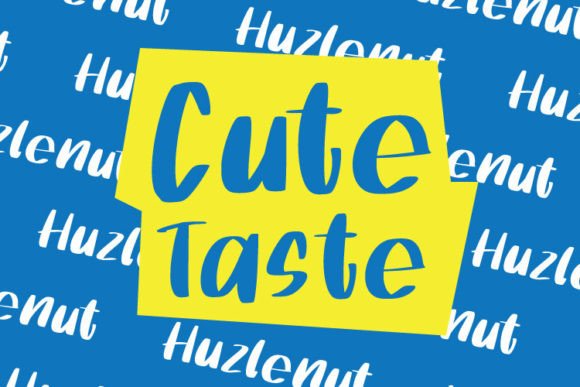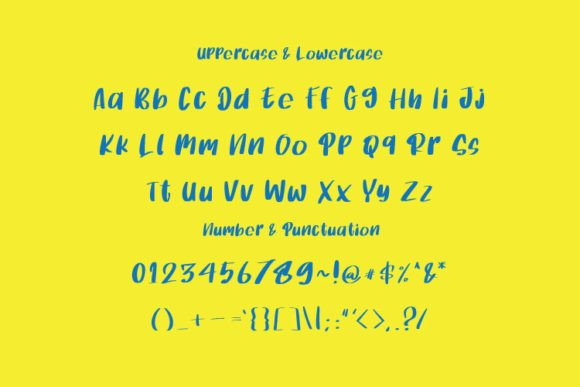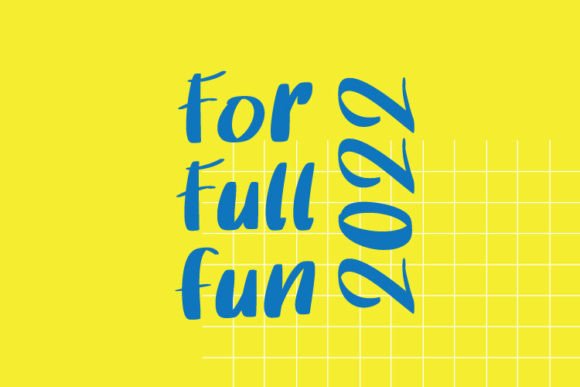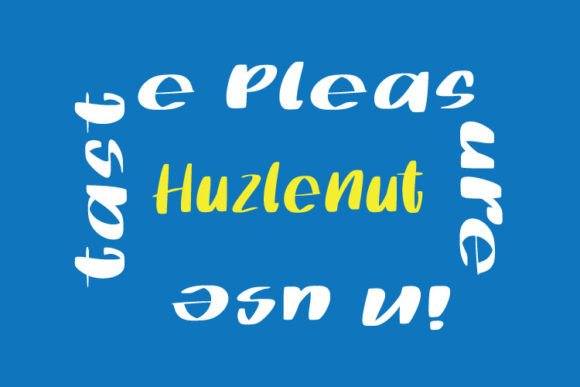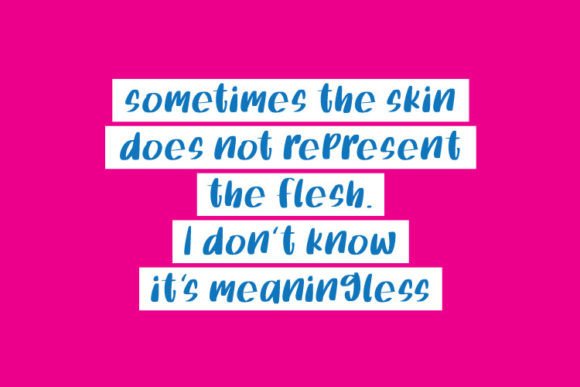
Introduction to Huzlenut Font
Do you remember the thrill of creating something with your own two hands? For designers, that moment often comes when we stumble upon the perfect font to bring our ideas to life. And, if you’re anything like me, you’ve spent countless hours searching for that elusive combination of style and functionality. Well, your search might just be over with the Huzlenut Font.
With its clean, cute, and adaptable design, the Huzlenut Font is the ultimate game-changer for any creative project. Whether you’re working on a logo, a social media post, or a design resource for your clients, this font is sure to add a personal and realistic touch to your work. And, as a bonus, it’s available for free download, making it an accessible and valuable resource for designers of all levels.
From high-quality graphics to transparent backgrounds, the Huzlenut Font is designed to be versatile and easy to use. So, what are you waiting for? Dive into the world of creative possibilities with the Huzlenut Font and discover a whole new level of design freedom.
Key Features of Huzlenut Font
- High-quality, professional font perfect for creative projects and design resources.
- Features a transparent background, allowing for seamless integration into any design.
- Designed with a unique, modern aesthetic, making it ideal for contemporary design projects.
- Includes a range of characters, including uppercase and lowercase letters, numbers, and punctuation.
Honest Review: Huzlenut Font
I recently stumbled upon the Huzlenut Font while searching for a design resource to spice up a creative project. I was excited to give it a try and see how it would work out.
- The font is quite versatile and can be used for a variety of creative projects, from digital designs to print materials.
- The font files include a transparent background, making it easy to work with and customize.
However, I did notice a few limitations: ⚠️
- The font is not available in as many weights and styles as some other high-quality fonts on the market.
- The design may not be suitable for all types of creative projects, particularly those requiring a more formal or professional tone.
Overall, I’d say the Huzlenut Font is a solid addition to any designer’s toolkit, but it’s not without its limitations. With a little creativity and experimentation, it can be a valuable resource for a wide range of creative projects.
Tips for Getting the Most Out of Huzlenut Font
Experiment with different font sizes and styles to achieve the desired look. Use the font’s transparent background to add visual interest to your designs. Combine the Huzlenut Font with other design elements to create a cohesive and visually appealing design.
The Huzlenut Font is perfect for a variety of creative projects, including social media graphics, presentations, and documents. Use this font to add a touch of elegance to your designs and make them stand out.